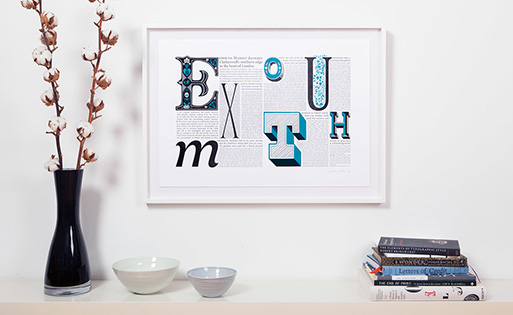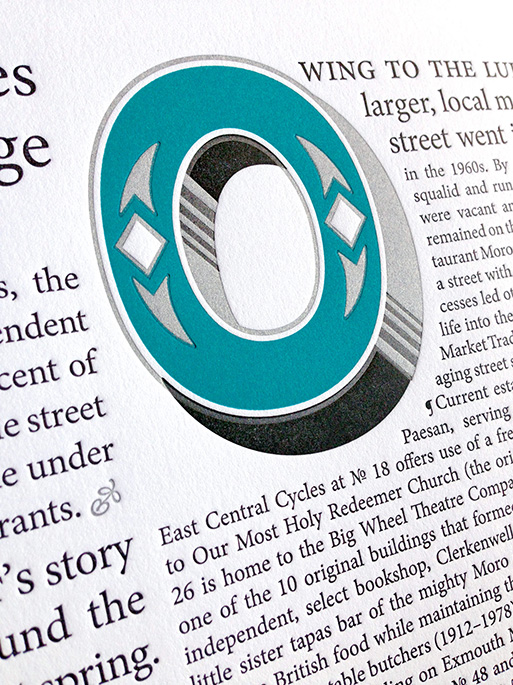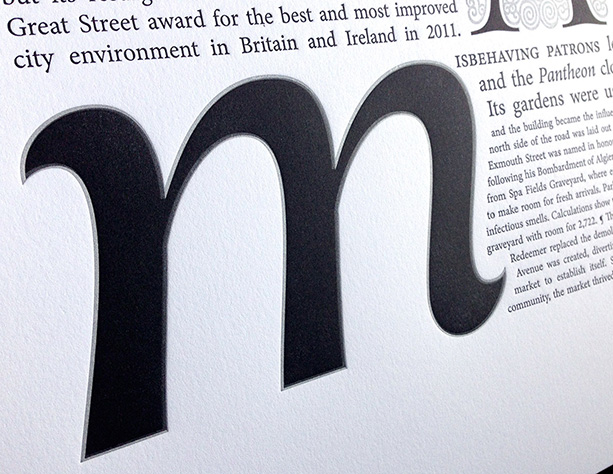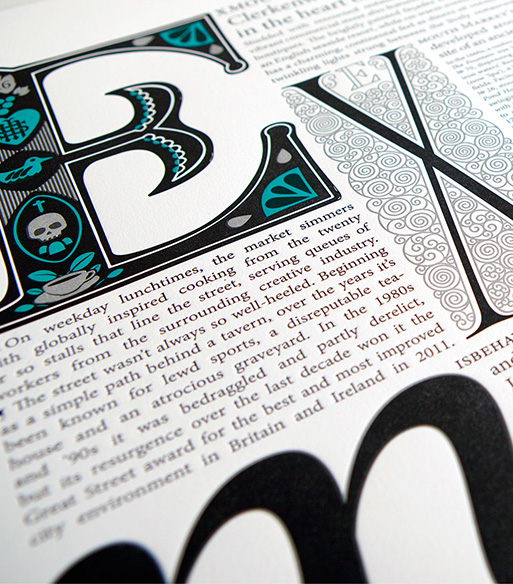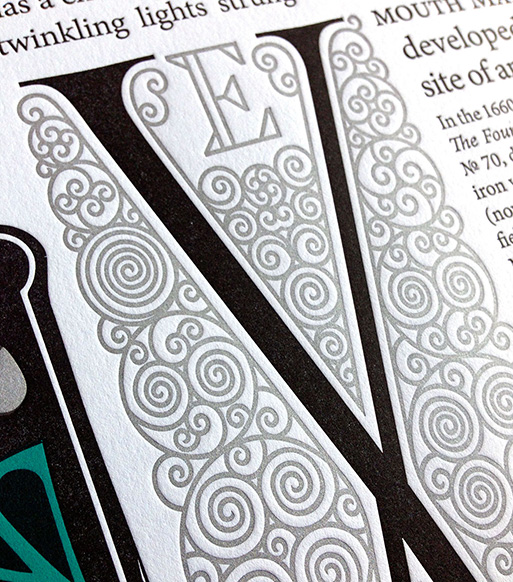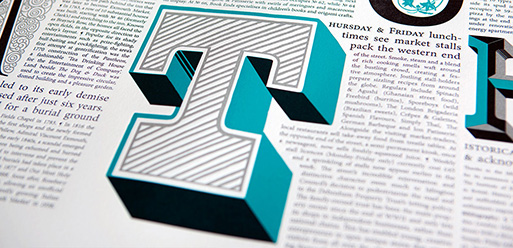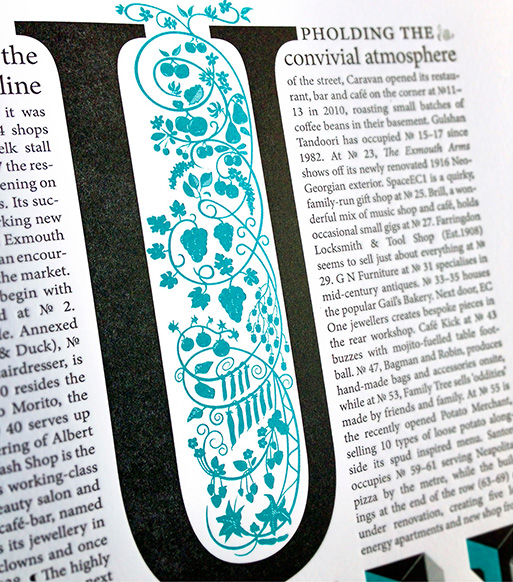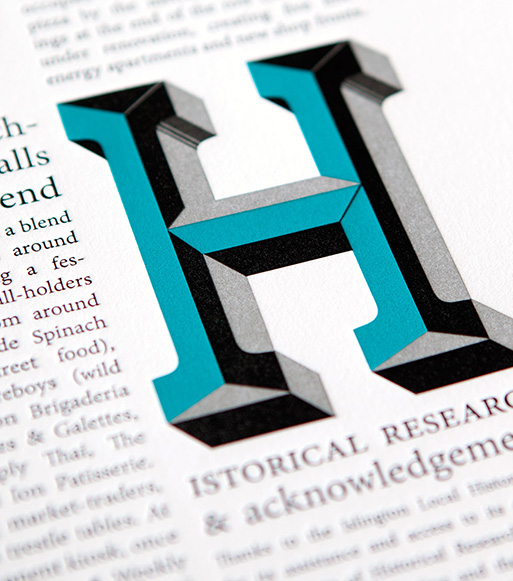
Delve into Jamie Clarke's “Typographic Time Capsule”
By specialising in illustrative type and lettering renowned typophile Jamie Clarke aims to bring words to life and “make them more vivid with imagery and decoration”. Eye-catching typography is his obsession therefore his latest project “Typographic Time Capsule: Exmouth Market Letterpress Print” is a thoughtful trip down Britain’s memory lane.
“Exmouth Market is one of Central London’s hidden gems, packed with independent shops, restaurants, cafés and market stalls” he says. “This snapshot aims to preserve the street’s unique identity by recording each of its present-day ‘establishments of note’ and regular market stalls. It also delves into the location’s shady 400-year history that includes blood sports, a disreputable Victorian tea garden and an atrocious graveyard now buried under the adjacent park.
I delved into its history reading-up on looking through old postal directories, maps and newspaper clippings to build a timeline surrounding the street.
Being located in Clerkenwell, historically the area associated with London’s Type Foundries, it was fitting to tell the story purely using typography and lettering.
To evoke the style of the market, the decorated initials, spelling ‘Exmouth’, have been inspired by the rich assortment of lettering found on the street or designed to represent its past. The ‘E’ features decorative elements that symbolise the market’s watery origins: the ancient spa and the naval officer that Exmouth Market is named after. Other pictograms symbolise the vineyards, duck ponds, Victorian tea gardens and the graveyard. The ‘O’ represents Joseph Grimaldi—father of all modern-day clowns, who lived at № 56. The ‘U’’s floral pattern is inspired by the vine leaf frieze that decorates the church of Our Most Holy Redeemer and the ‘H’ echoes the original butcher’s livery, now maintained by the restaurant Medcalf.
Several of the present-day establishments the print describes have already moved or closed, which I hope means that the print already has some worth as an historical record. Despite its very niche subject matter, the print has sold in unlikely places such as Japan, Norway and Western Australia.
The various illustrated cap references are:
· E: Symbolizes; the market’s watery origins, the date year the street was named, the Vineyards, the duck ponds, Victorian tea gardens and the graveyard.
· M: Referencing the most successful, longstanding restaurant on the street, Moro.
· O: Represents Joseph Grimaldi—father of all modern-day clowns, who lived at № 56.
· U: Floral pattern is inspired by the vine leaf frieze that decorates the church of Our Most Holy Redeemer
· H: Echoes the original butcher’s livery, now maintained by the restaurant Medcalf (now gone).”